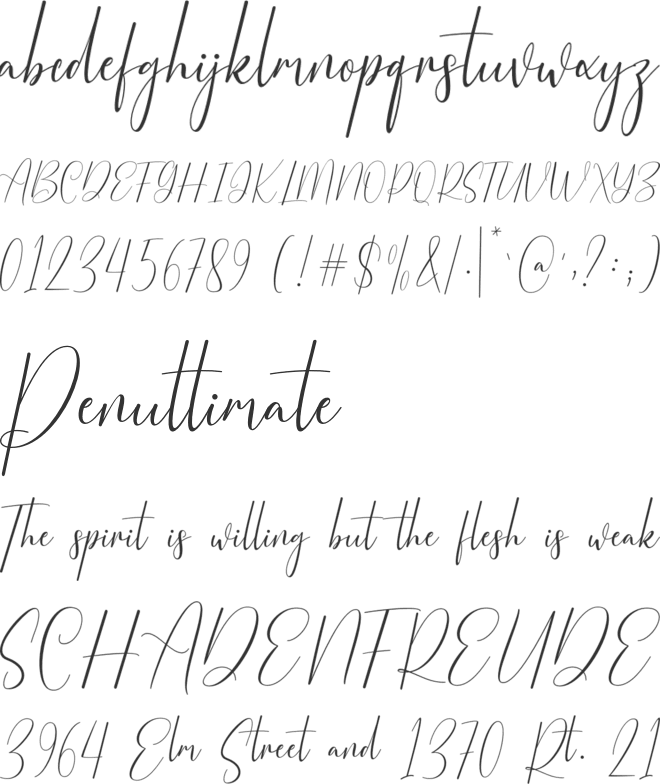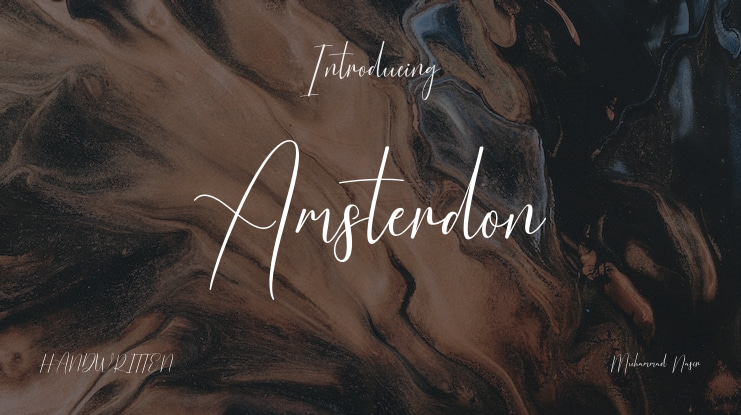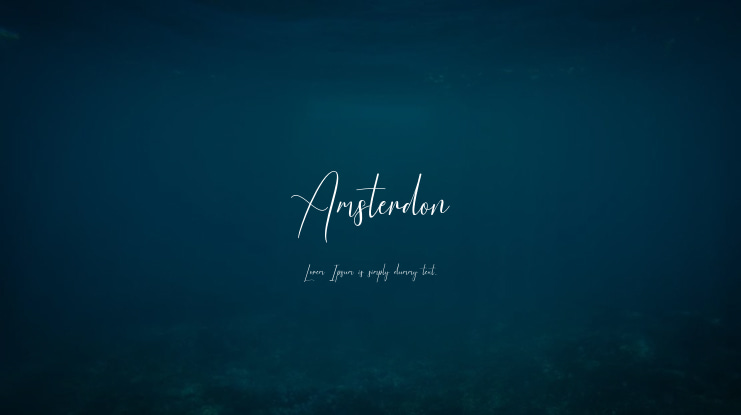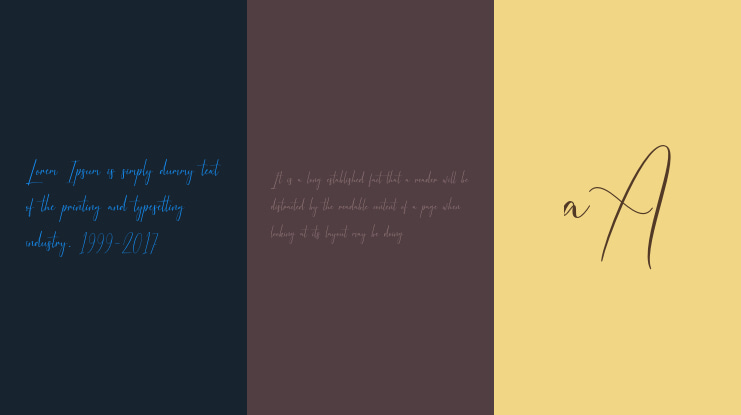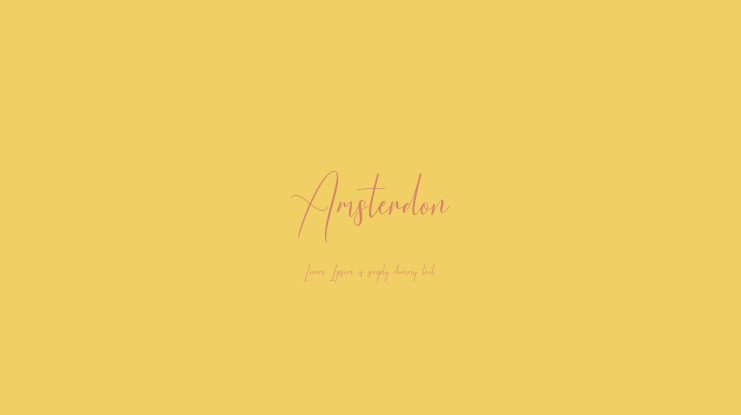
Amsterdon Font
Muhammad Nasir
Amsterdam is a striped font with a playful, bouncing appearance. It adds a personal touch to your creative projects, making it perfect for personalized craft endeavors. This decorative typeface will bring both elegance and charm to your designs.
Available in smooth glyphs